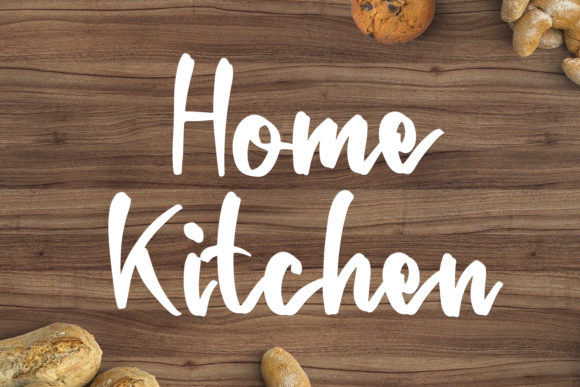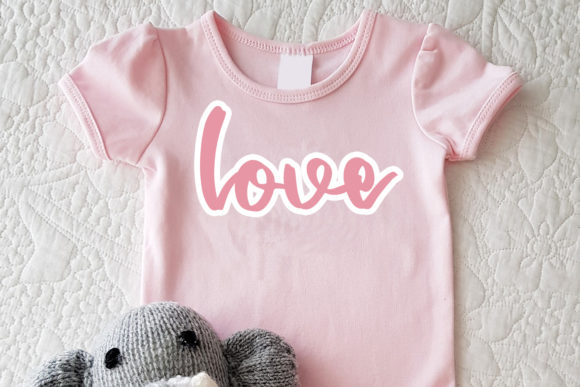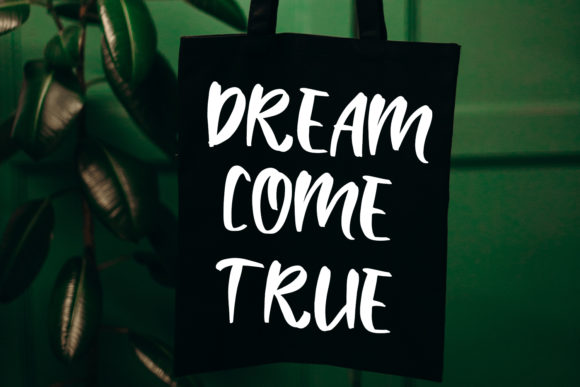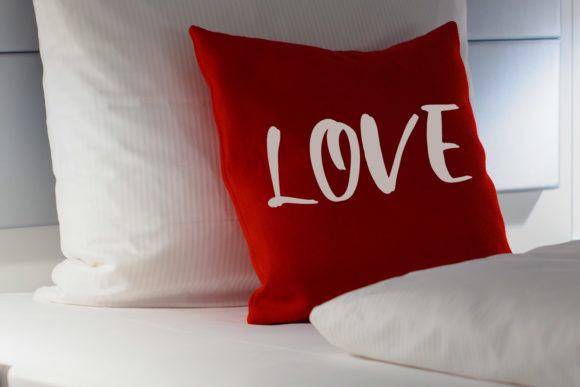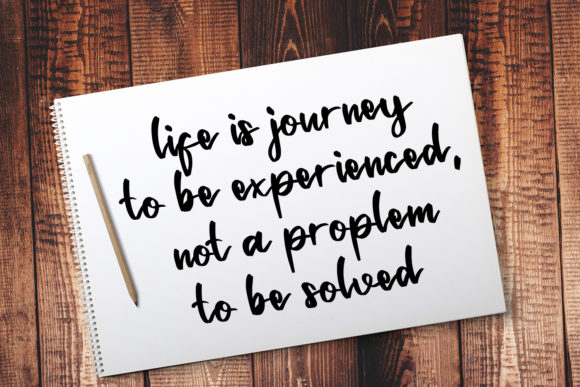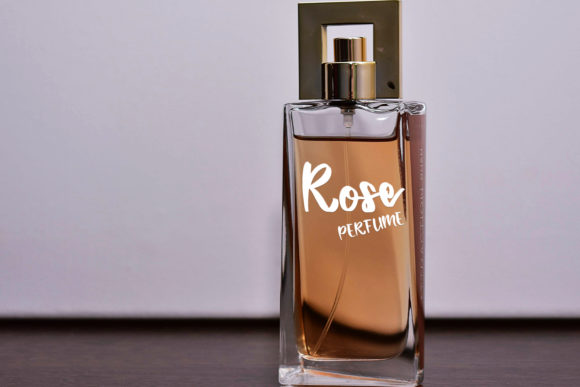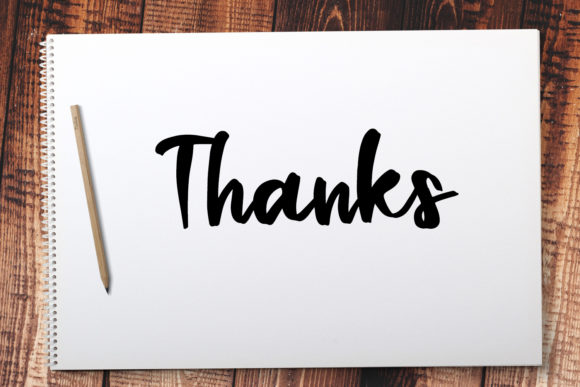
Pancake Font
About Pancake Font
Pancake is a flowing and friendly handwritten font. Its distinct and beautiful letters make this font a masterpiece. Fall in love with its versatile style and use it to create lovely designs!